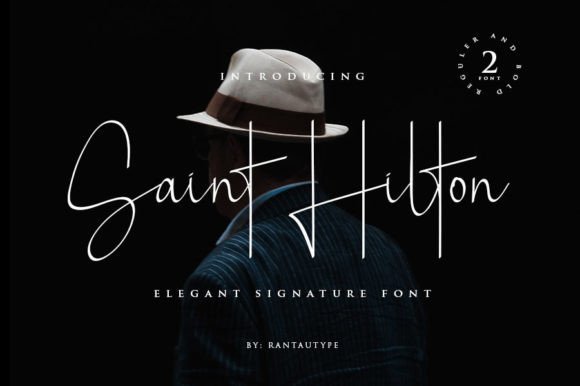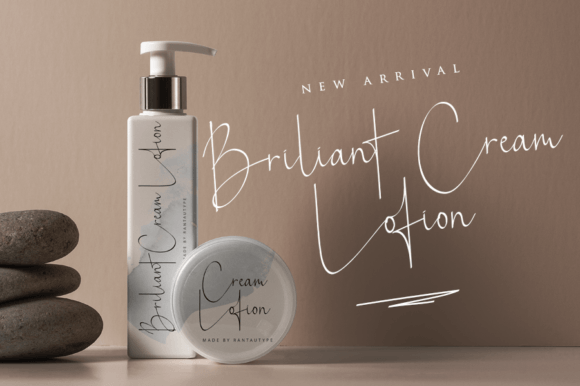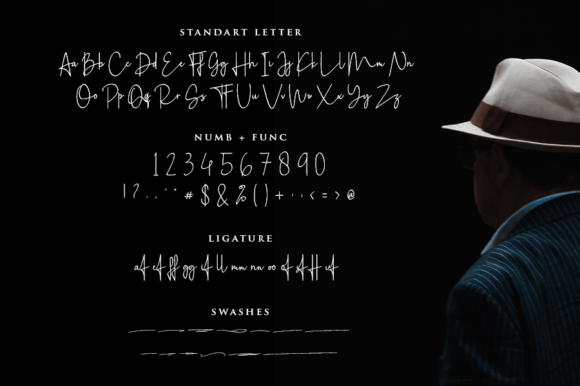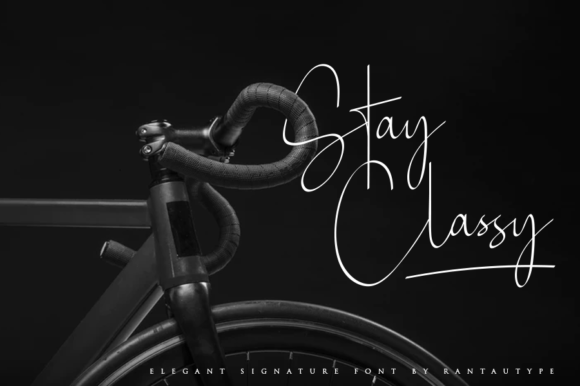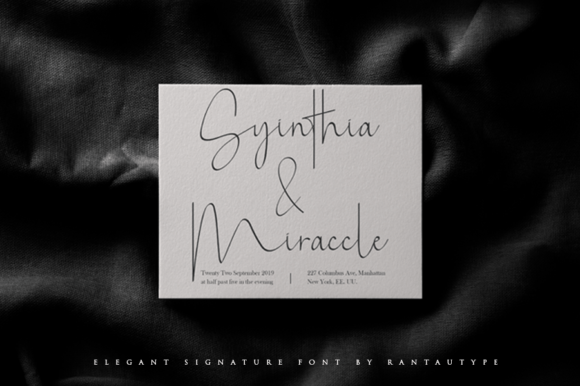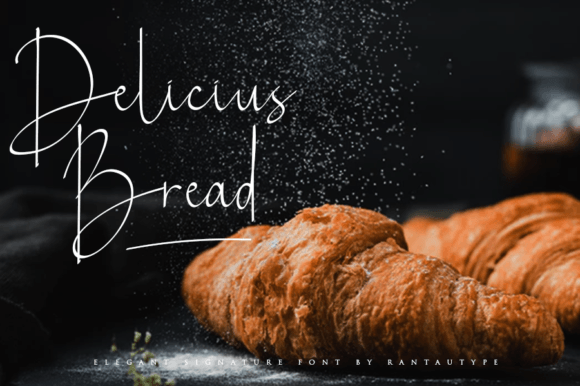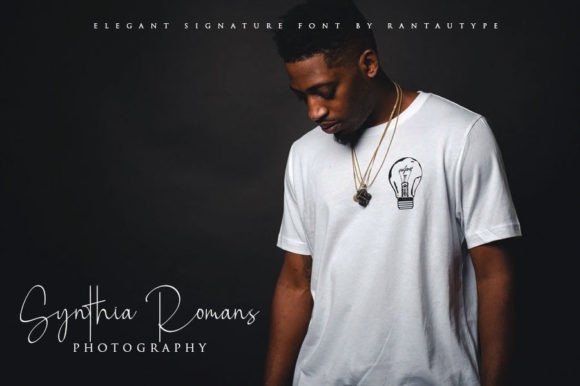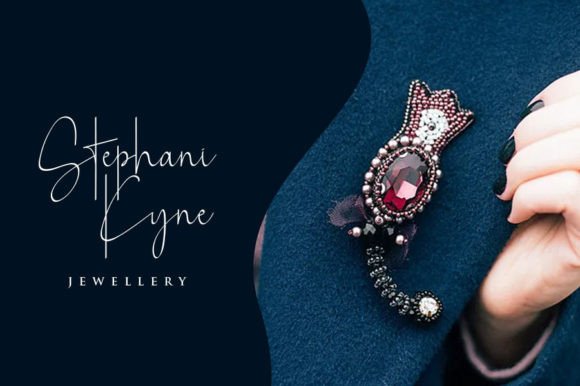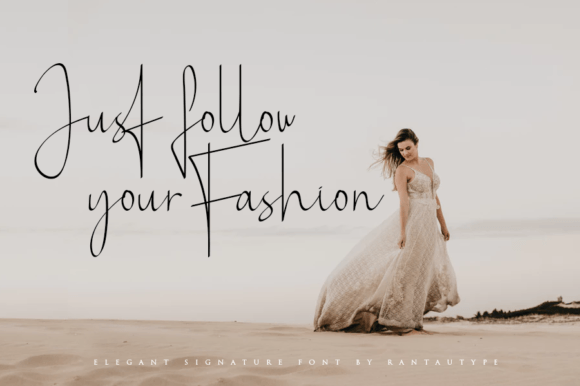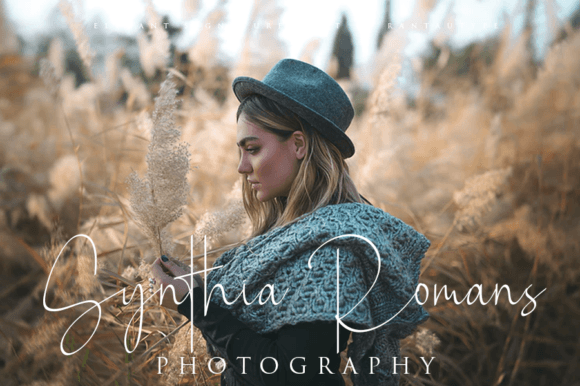
Saint Hilton Font
About Saint Hilton Font
Saint Hilton is a stylish font with elegant scratches. It is perfect for branding , wedding invitations and cards!